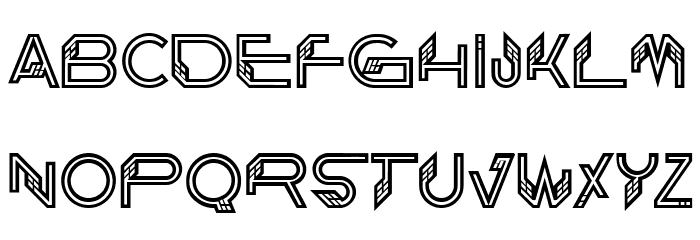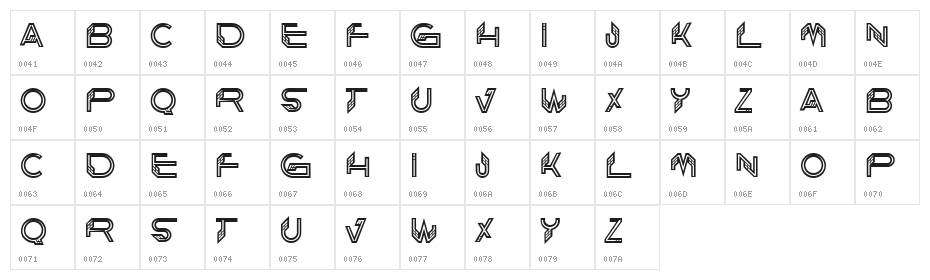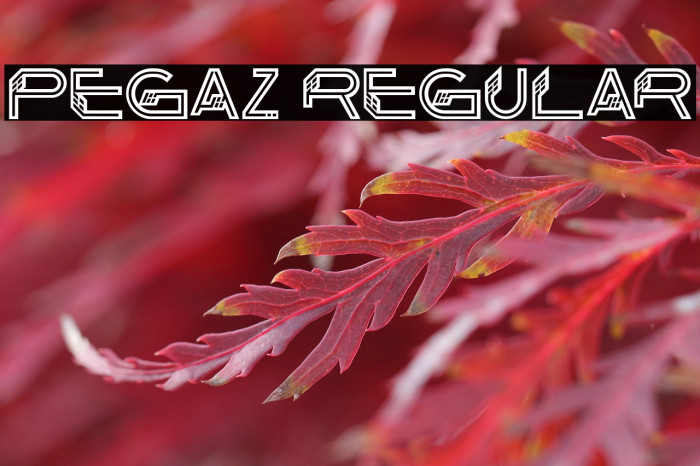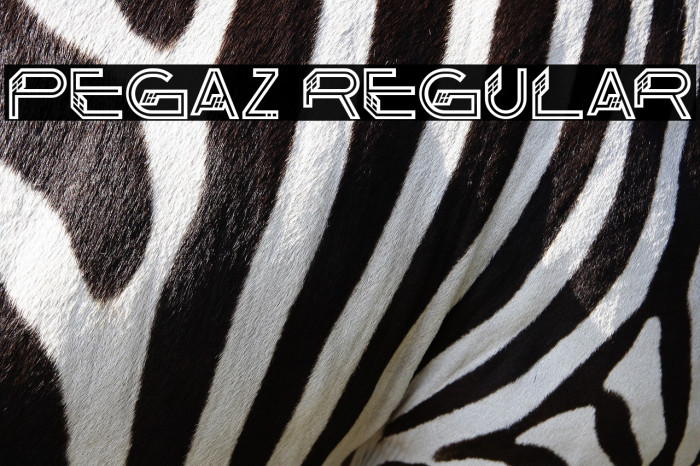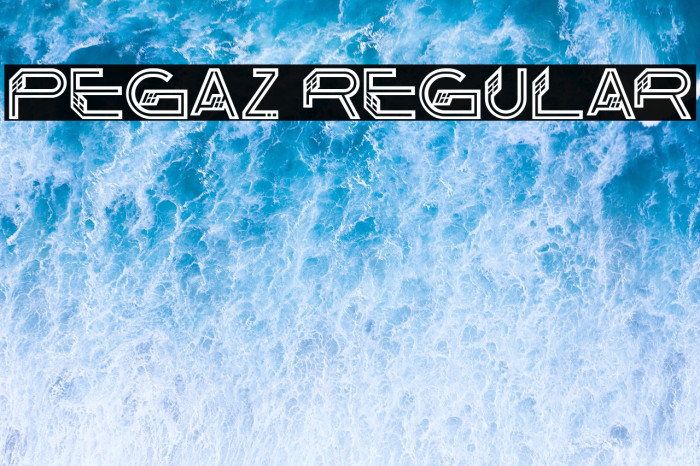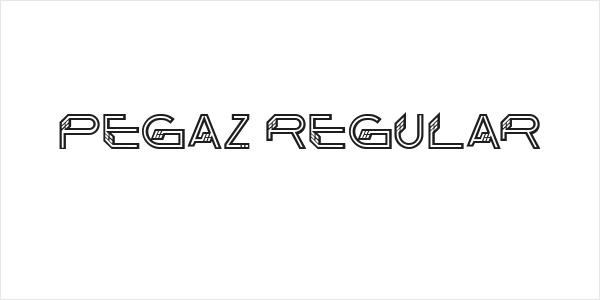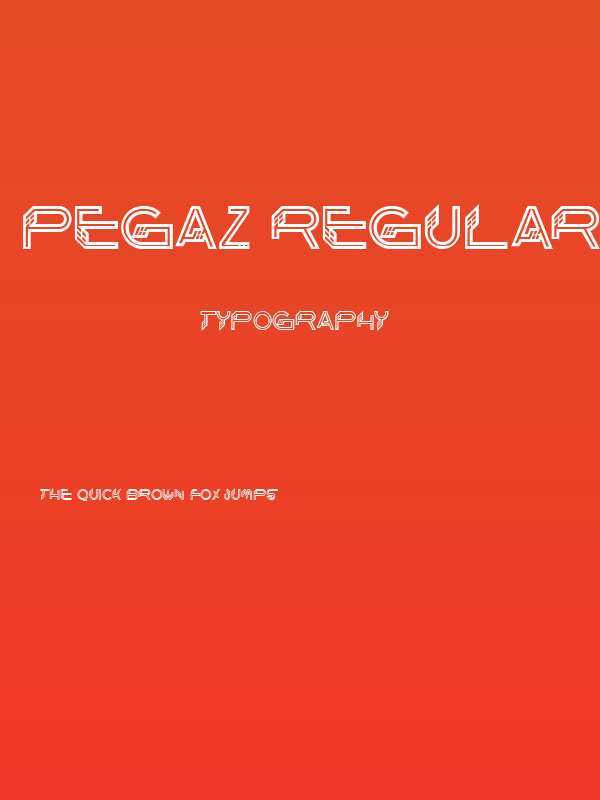
Pegaz Regular Font
This font features a unique and intricate design with a geometric and layered appearance. Each character is composed of multiple lines and shapes, creating a sense of depth and dimension. The letters have a futuristic and industrial feel, with sharp angles and precise lines. The overall look is bold and eye-catching, making it suitable for projects that require a strong visual impact. The font's design is consistent across all characters, maintaining a cohesive and harmonious style.
A bold, geometric font with a layered, futuristic design.
- Font: Pegaz Regular
- Proposed Projects: Ideal for branding, posters, album covers, and any project needing a modern, industrial aesthetic.